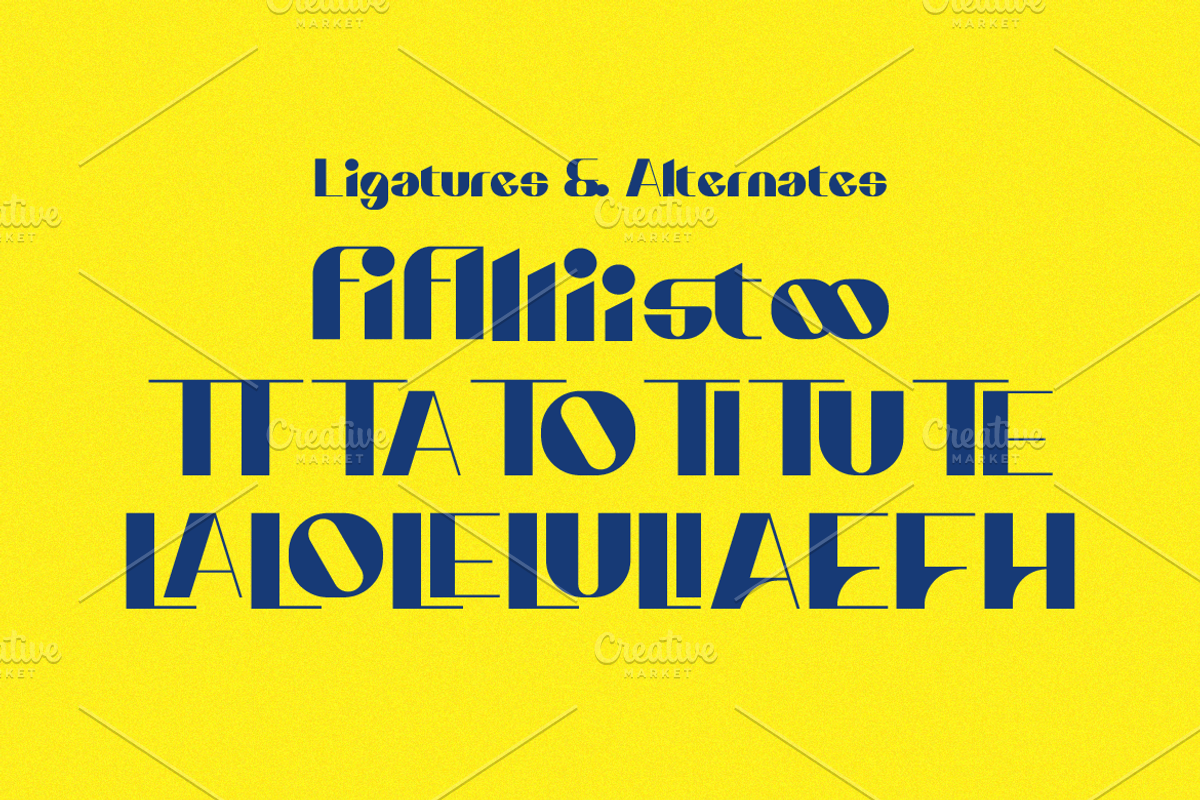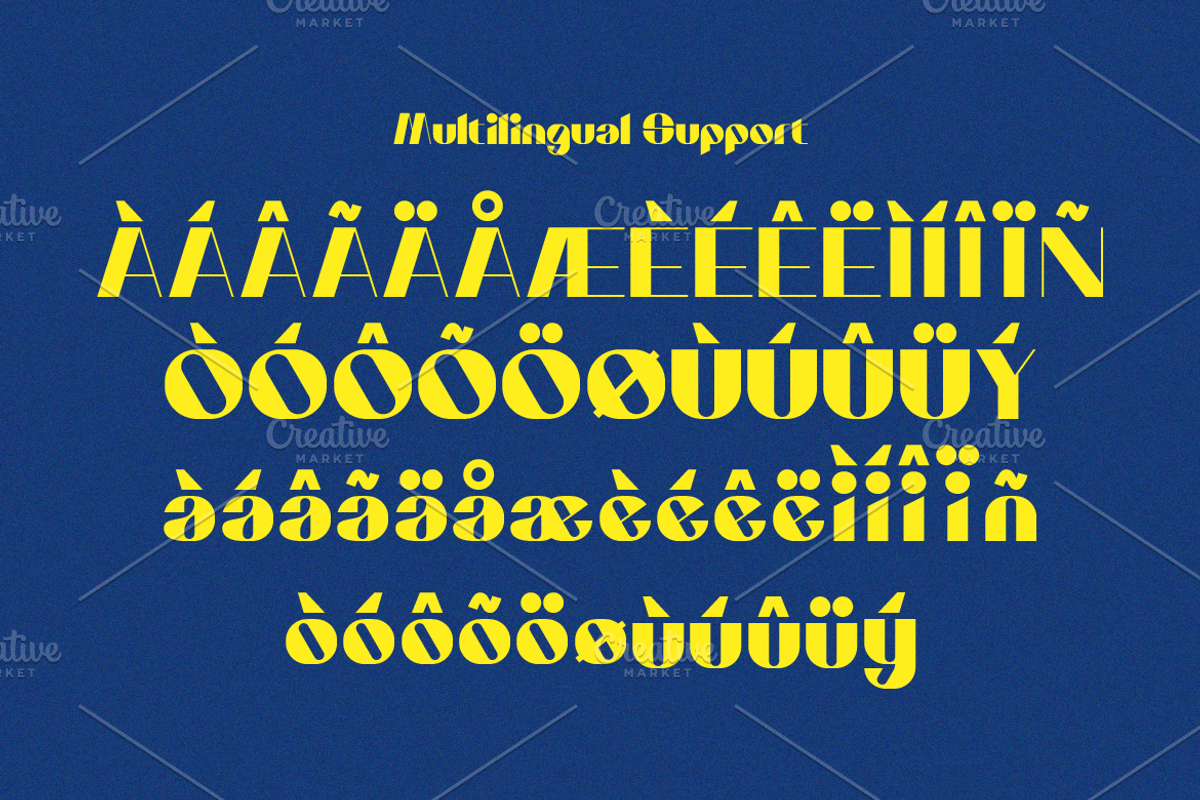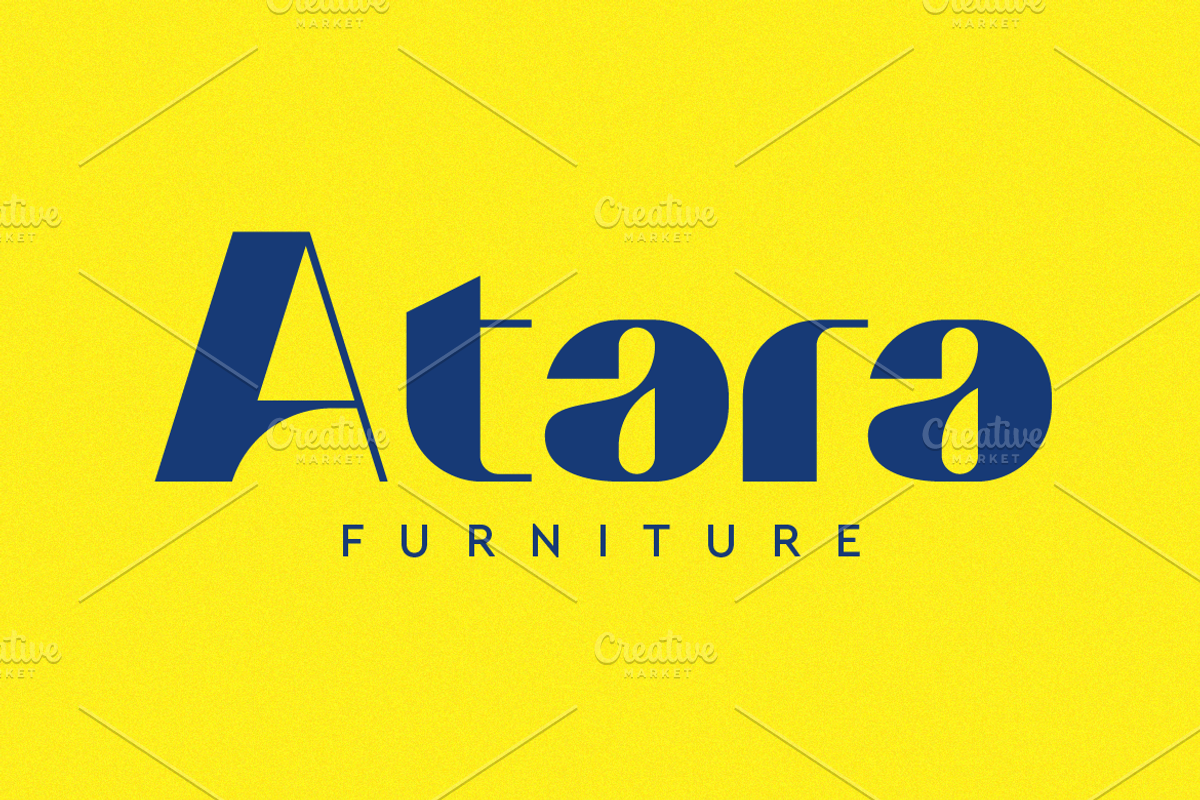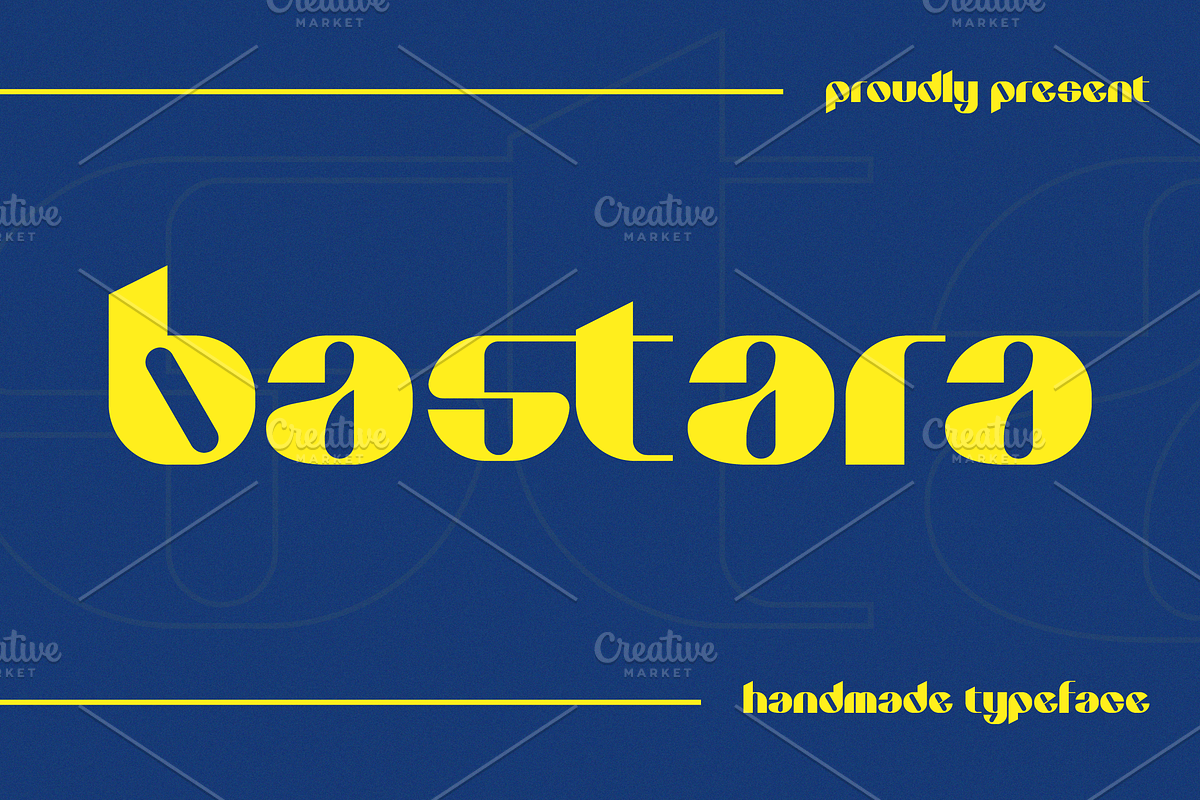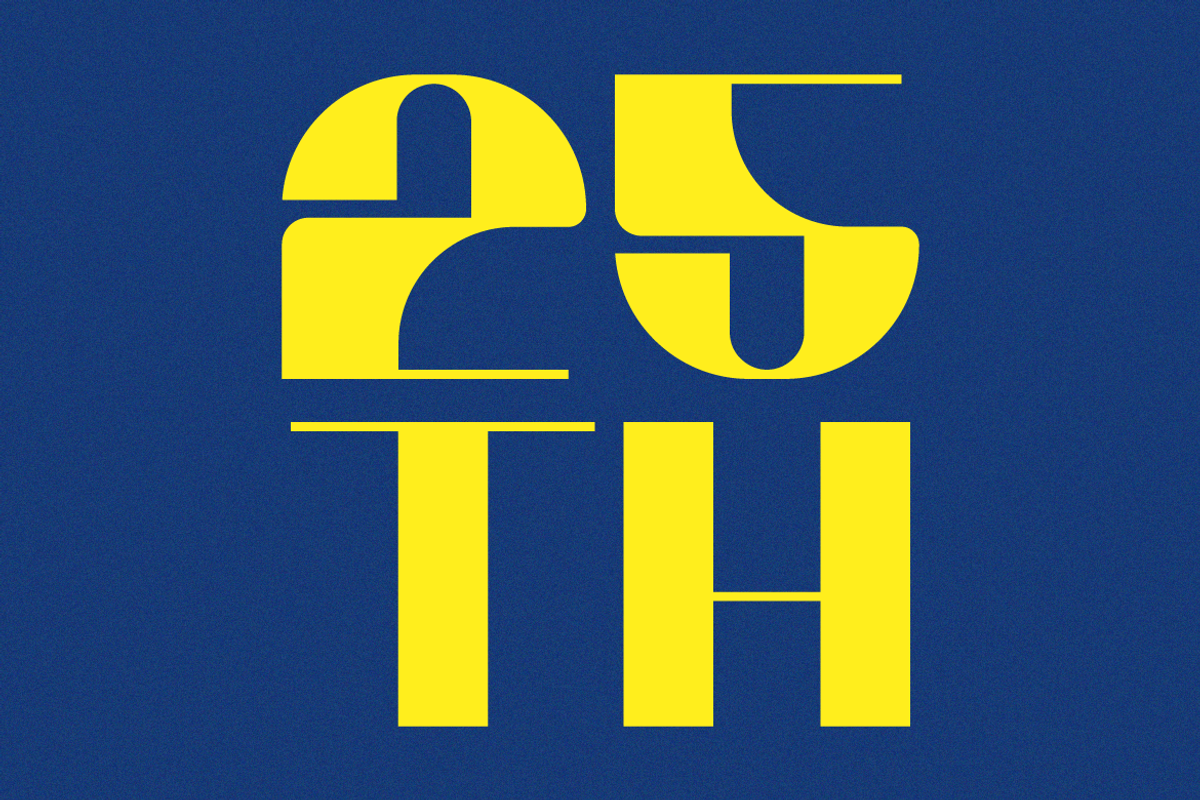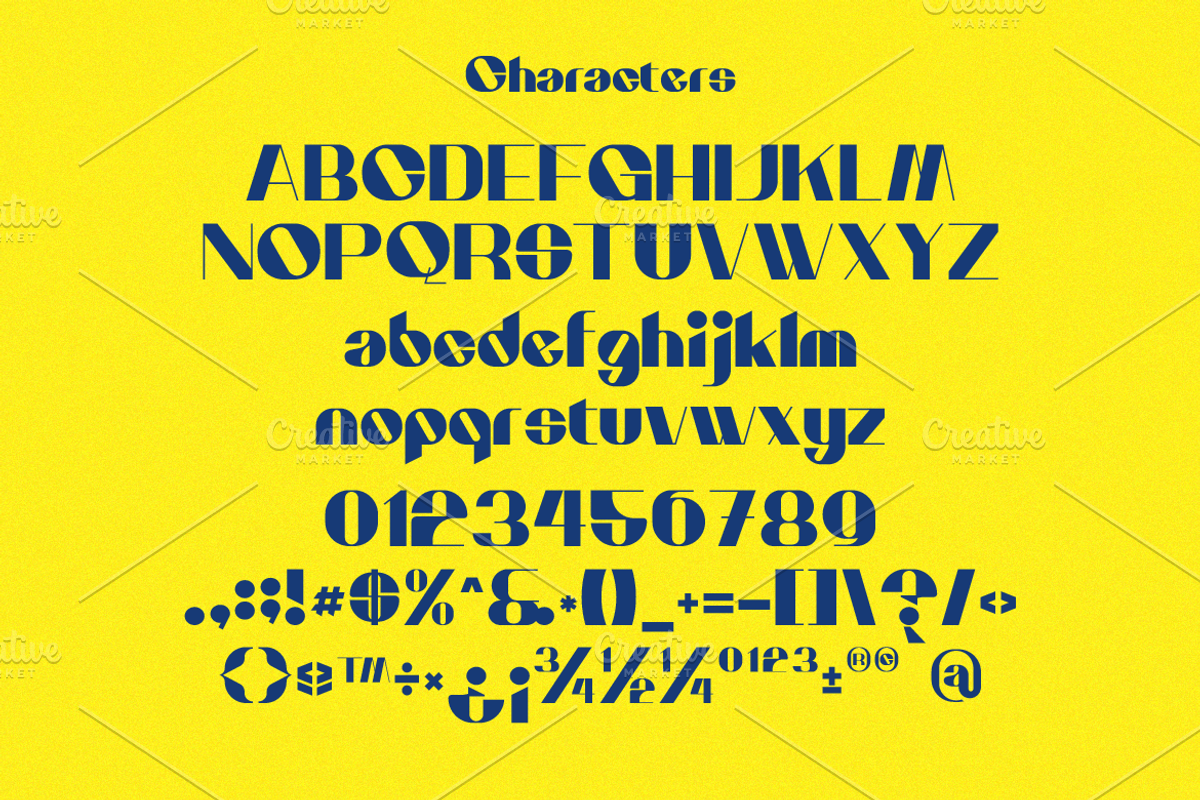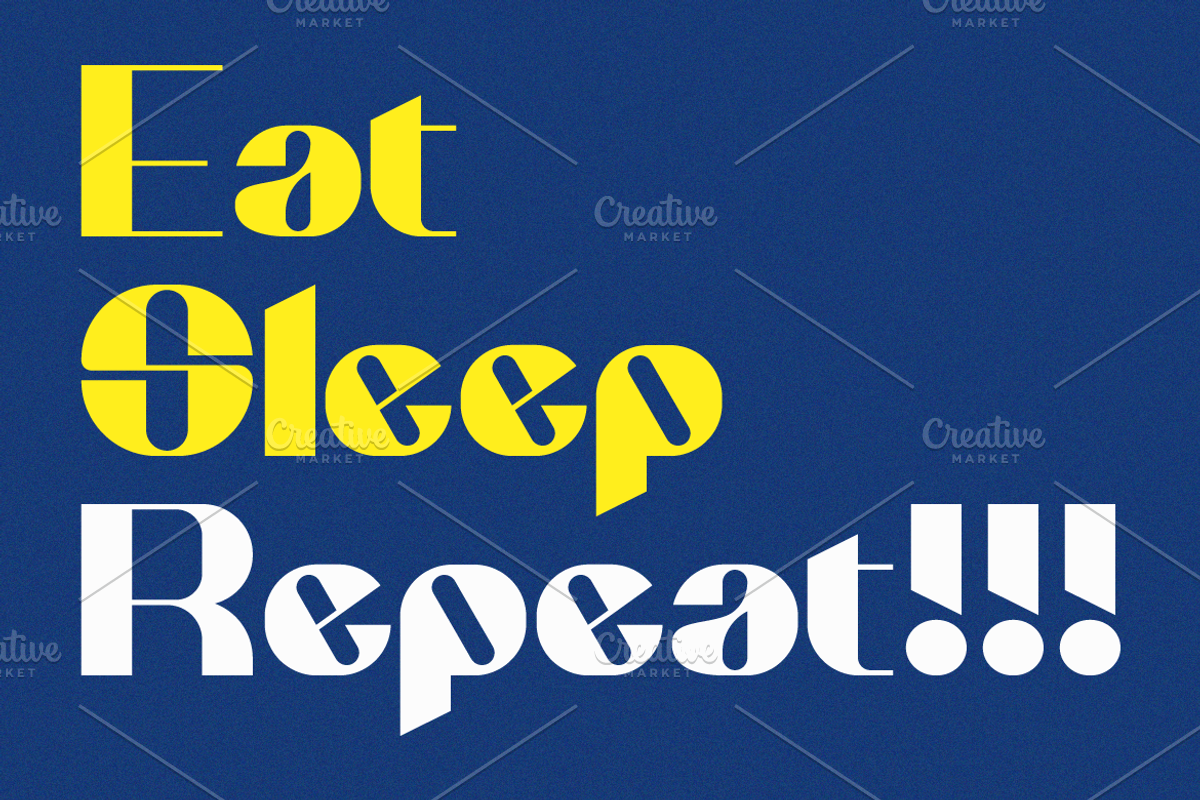
Bastara Handmade Sans Serif Font
Bastara is a handmade sans serif font by Iwan Alwan, featuring a rustic and organic feel with its handcrafted letterforms. Perfect for branding, packaging, and creative projects that require a personal, artisanal touch, Bastara combines the simplicity of sans serif with the charm of handmade design. With multilingual support, ligatures, and alternates, Bastara offers versatility while maintaining its warm, authentic aesthetic, making it ideal for designs that seek a natural and creative vibe.